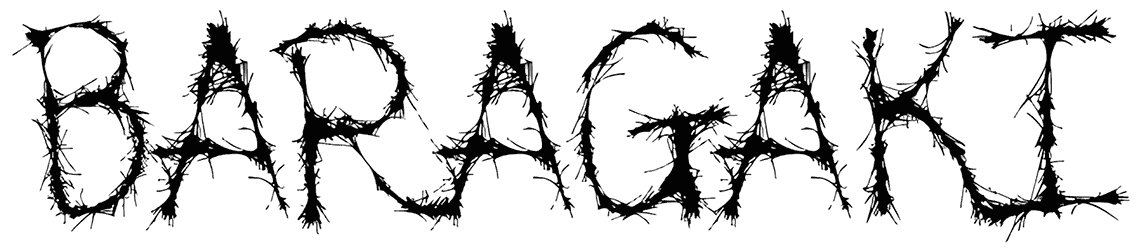
Pax Suyudz Font
Your digital artwork will have an aggressive appearance and feel when you use Pax Suyudz, a brush font that may generate a natural sense.
This rock font, with its two distinct weights, is chosen for the vibrant colors it displays in advertisements, flyers, fashion, and clothing, despite its lack of lowercase letters and numerals. If you thrive on challenges, give this a shot; the outcome will blow your client’s mind.
Designed by: PutraCetol Studio